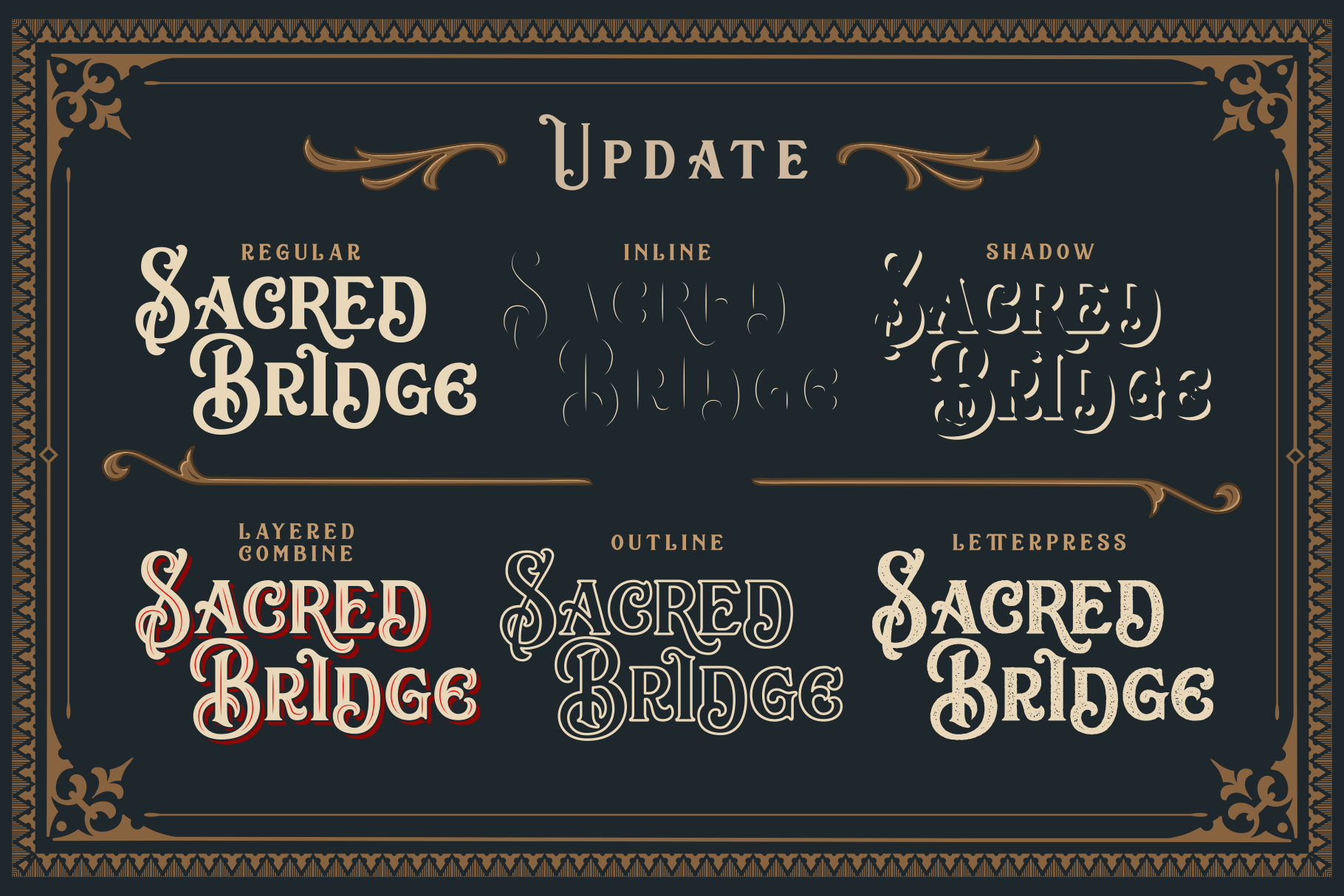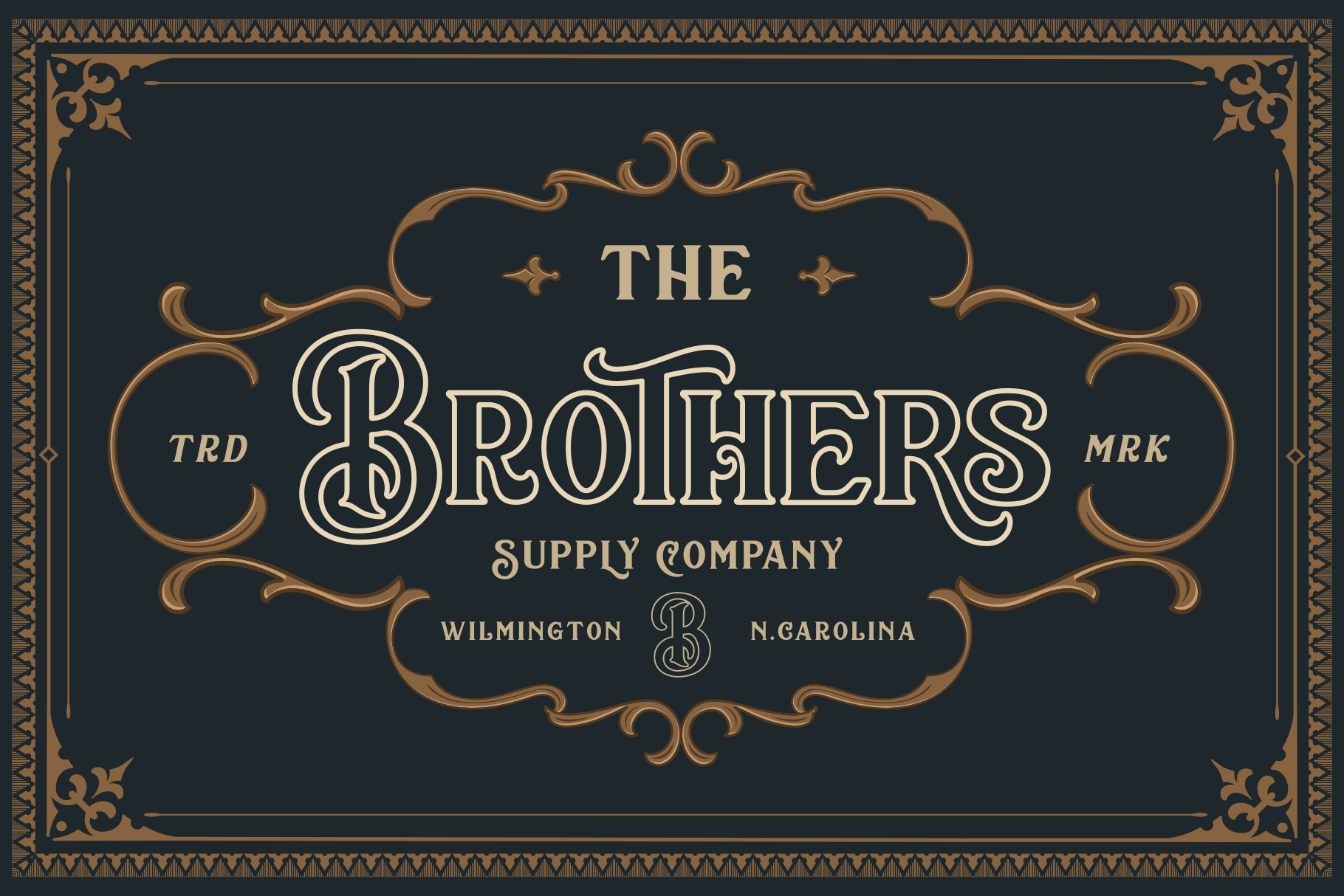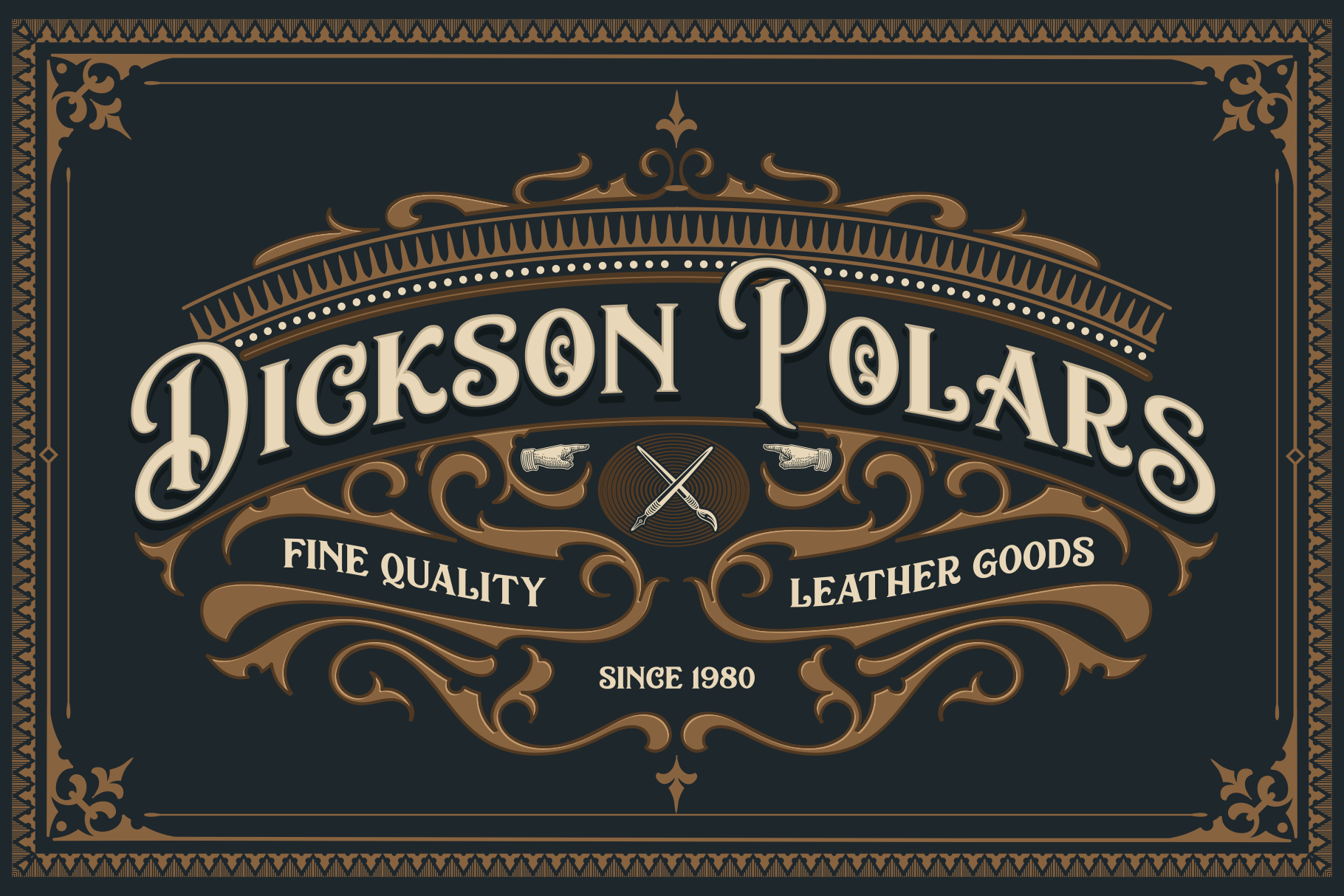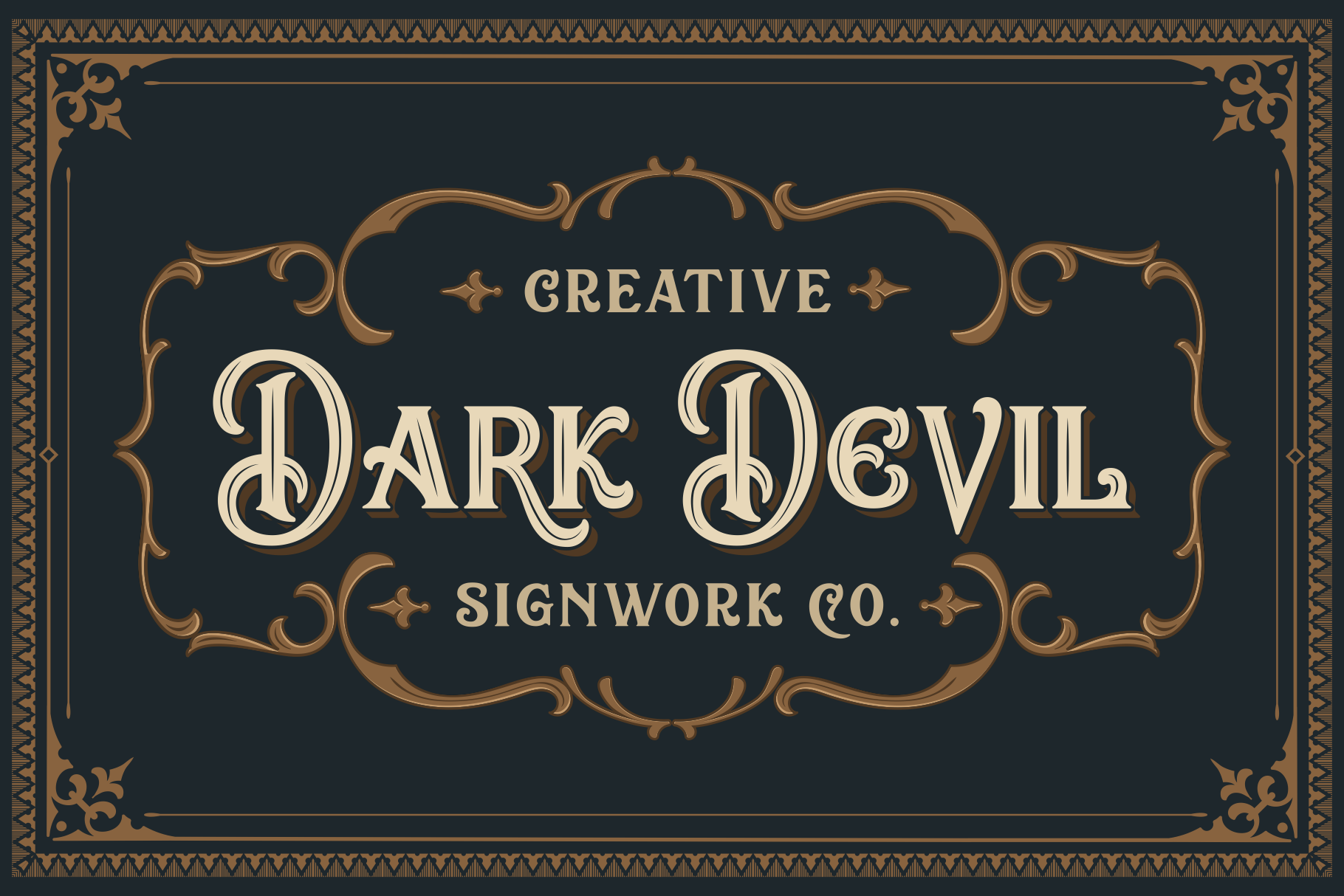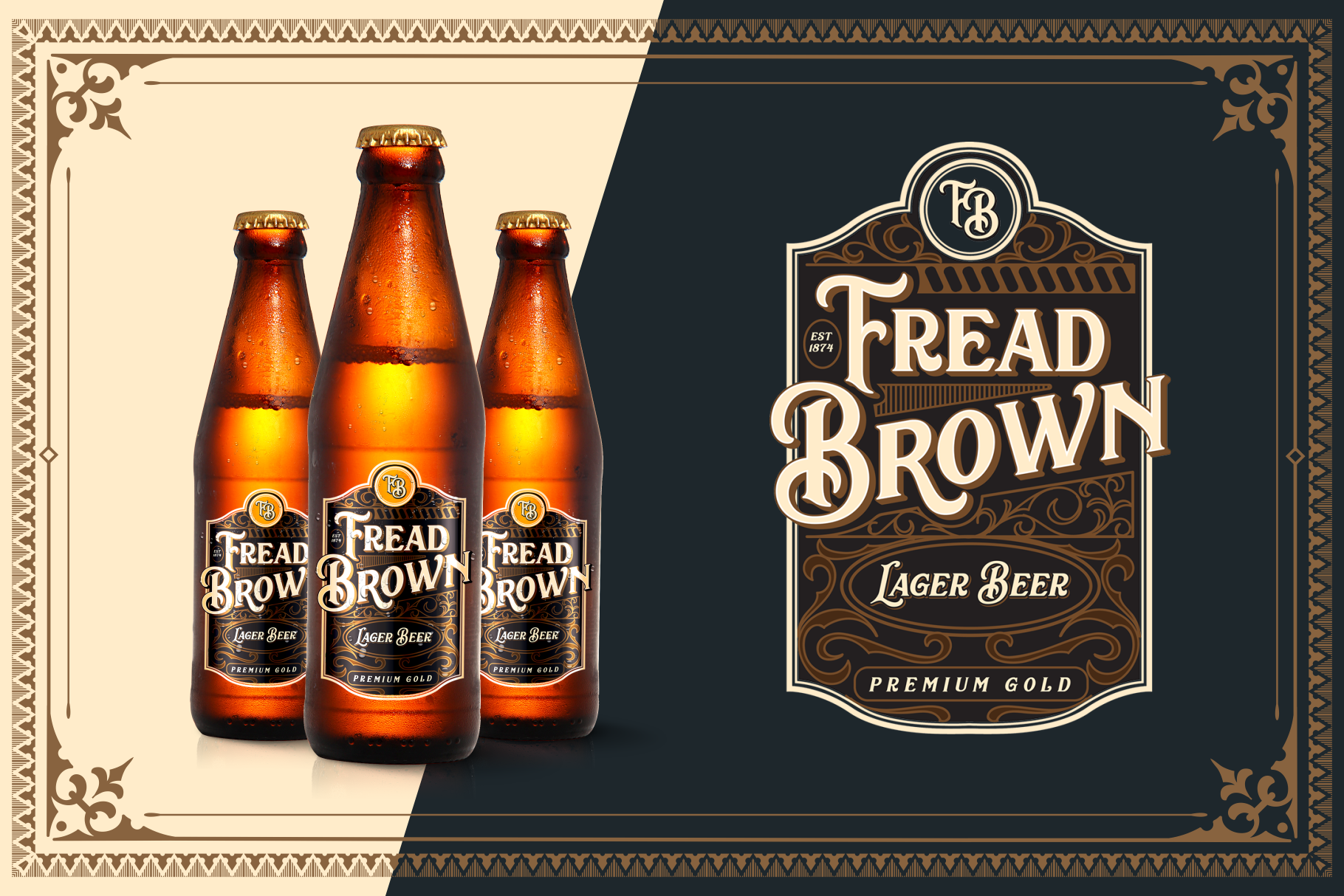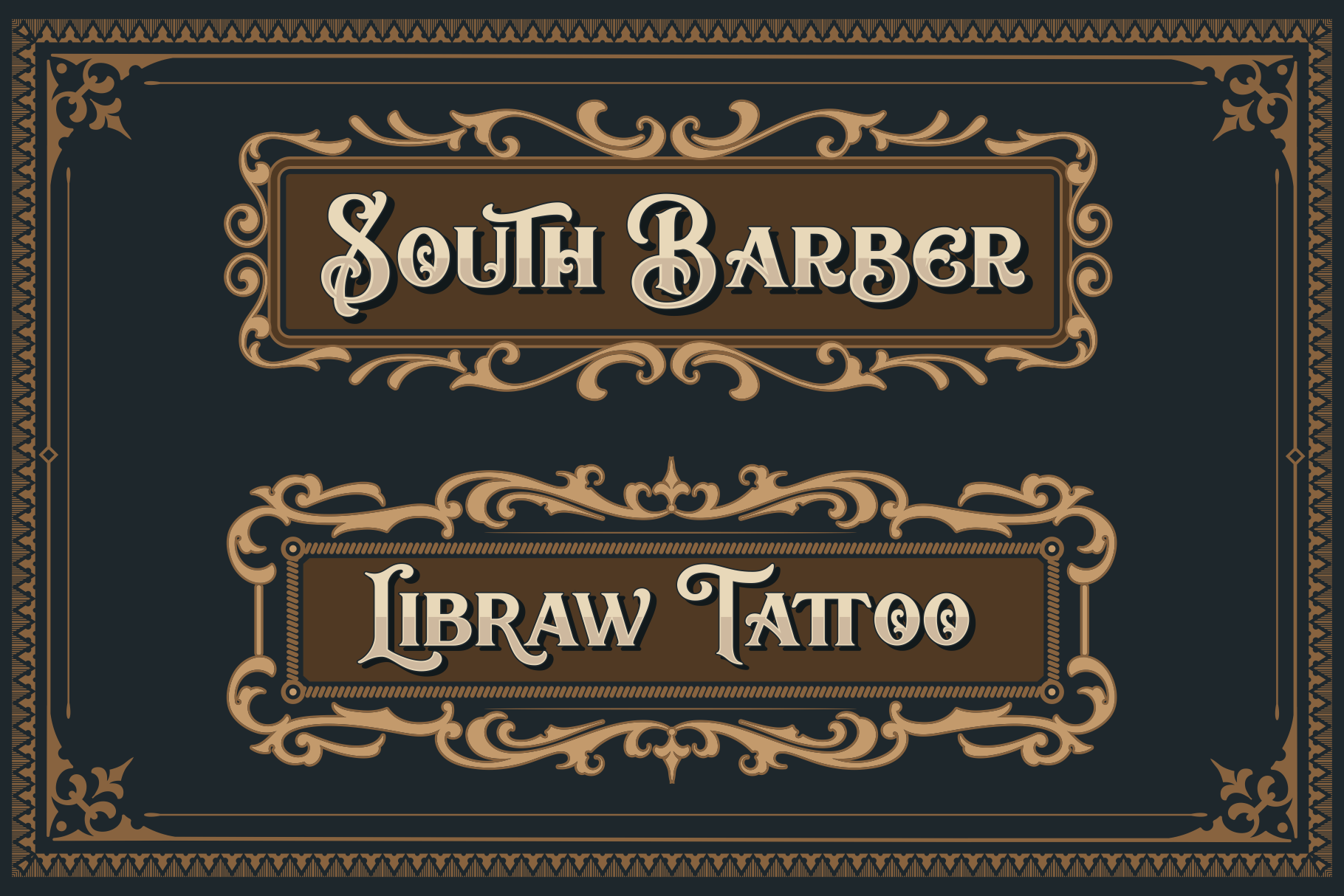
Introduction to Sacred Bridge Family Font
Sacred Bridge is an amazing font family, perfect for a wide range of design concepts.
Old fashioned and stunning, Sacred Bridge is suitable for antique or traditional designs, as well as modern designs with a twist This set comes with added extras to give your designs a complete and fully realized look.
Key Features of Sacred Bridge Family Font